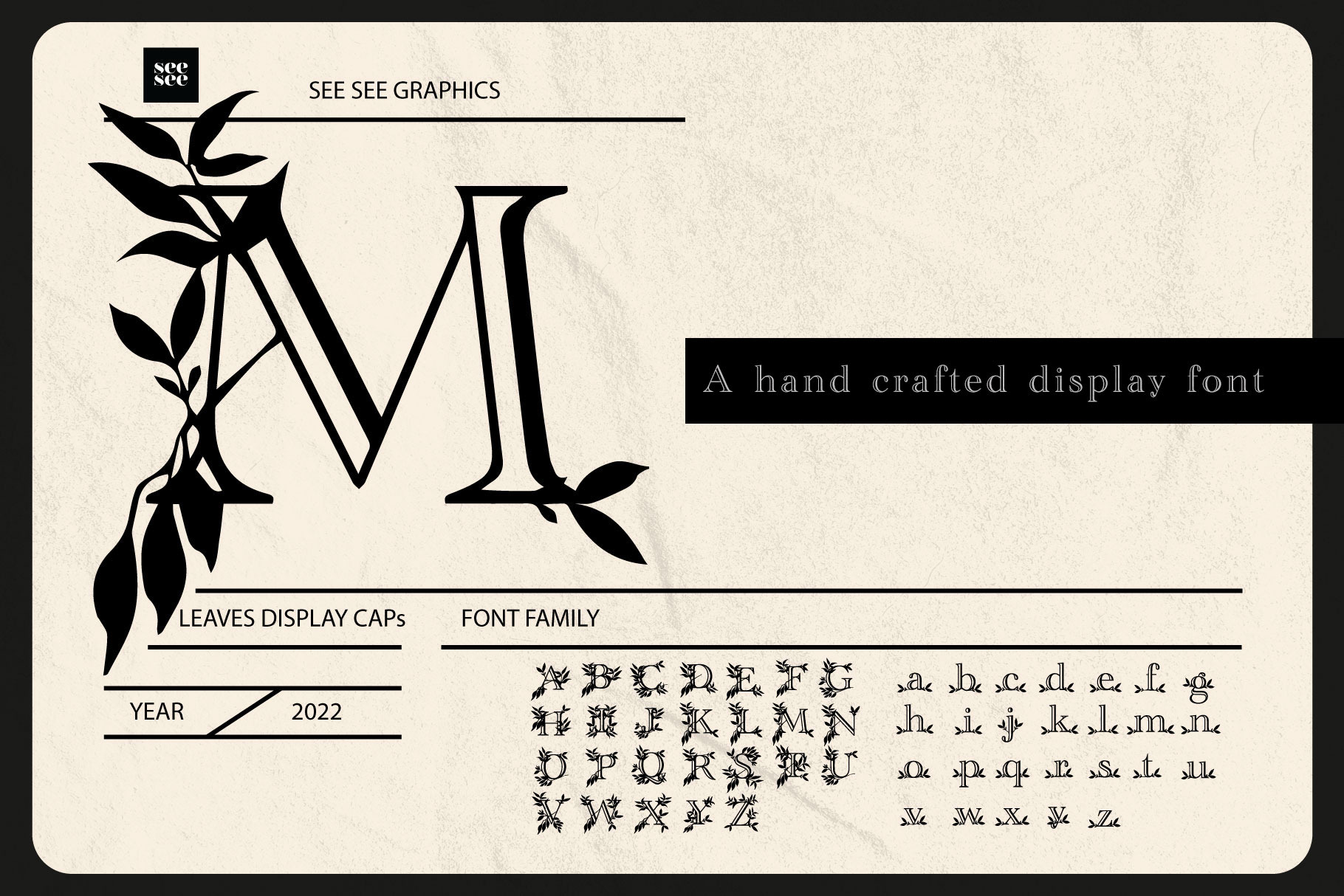
Leaves Display Cap Font
In Leaf - Display Font Set
A hand crafted display cap font that includes the lower case font family. Use it on monographs, packaging, logos and more. Vector file included.